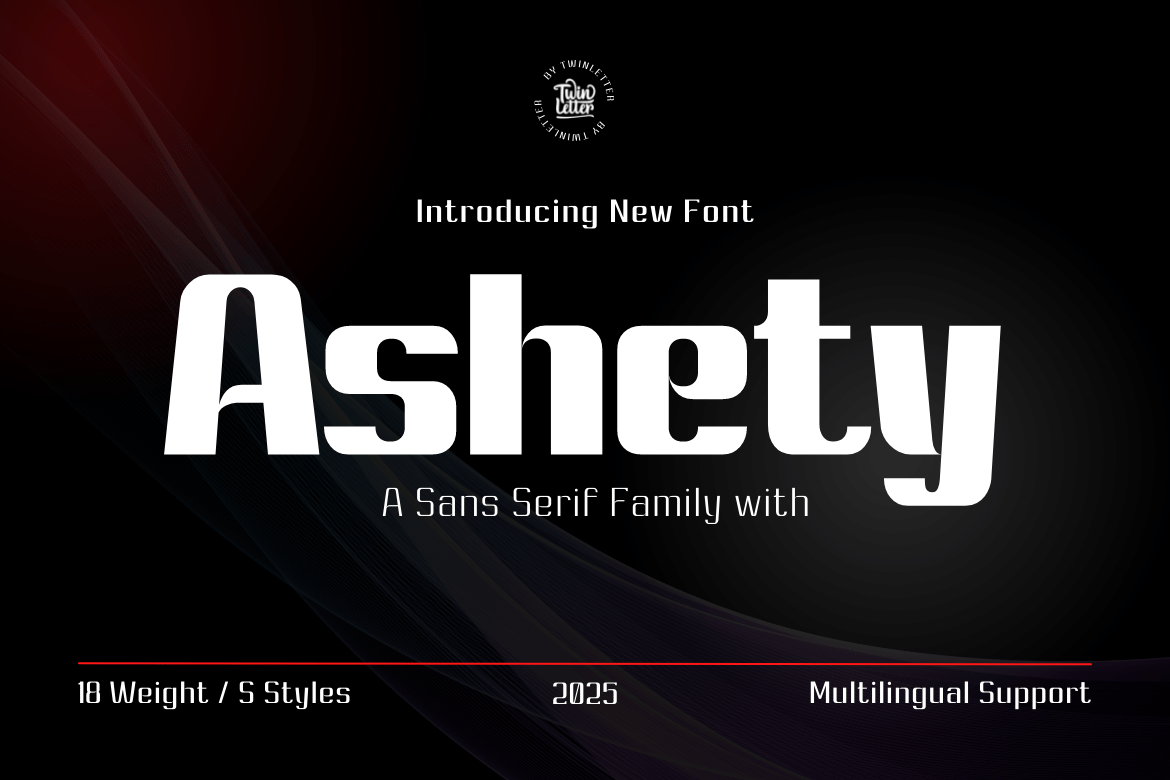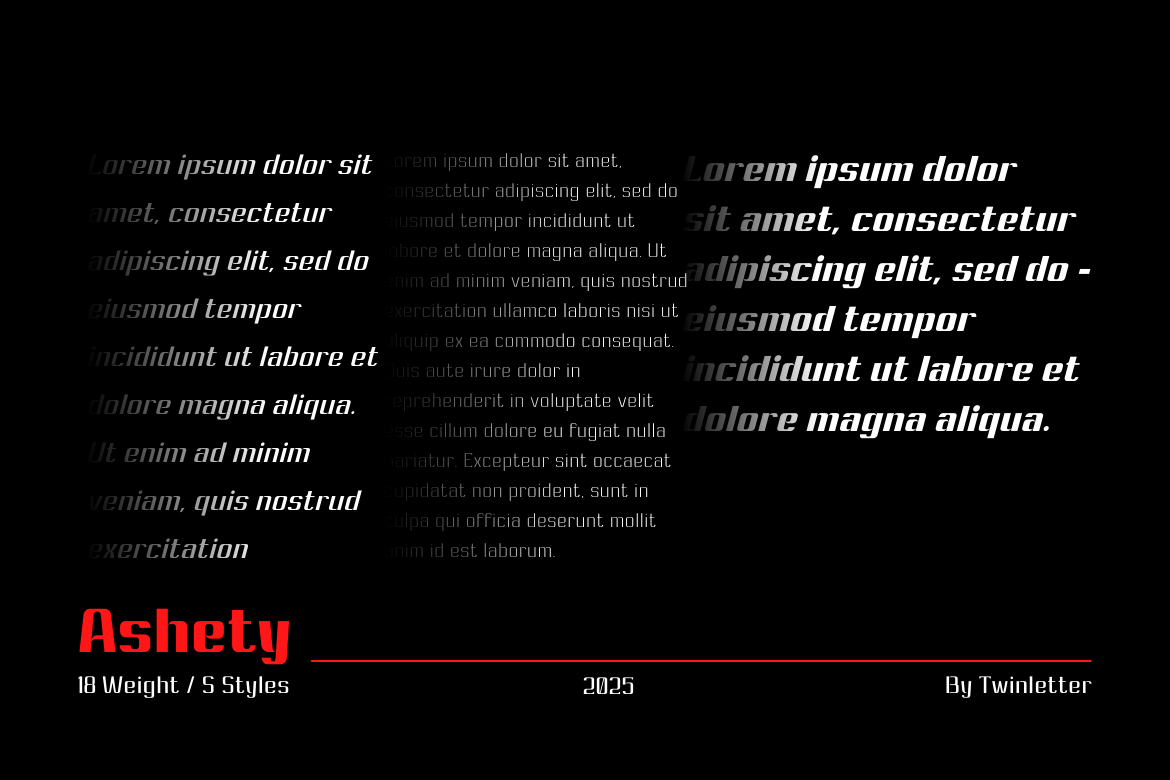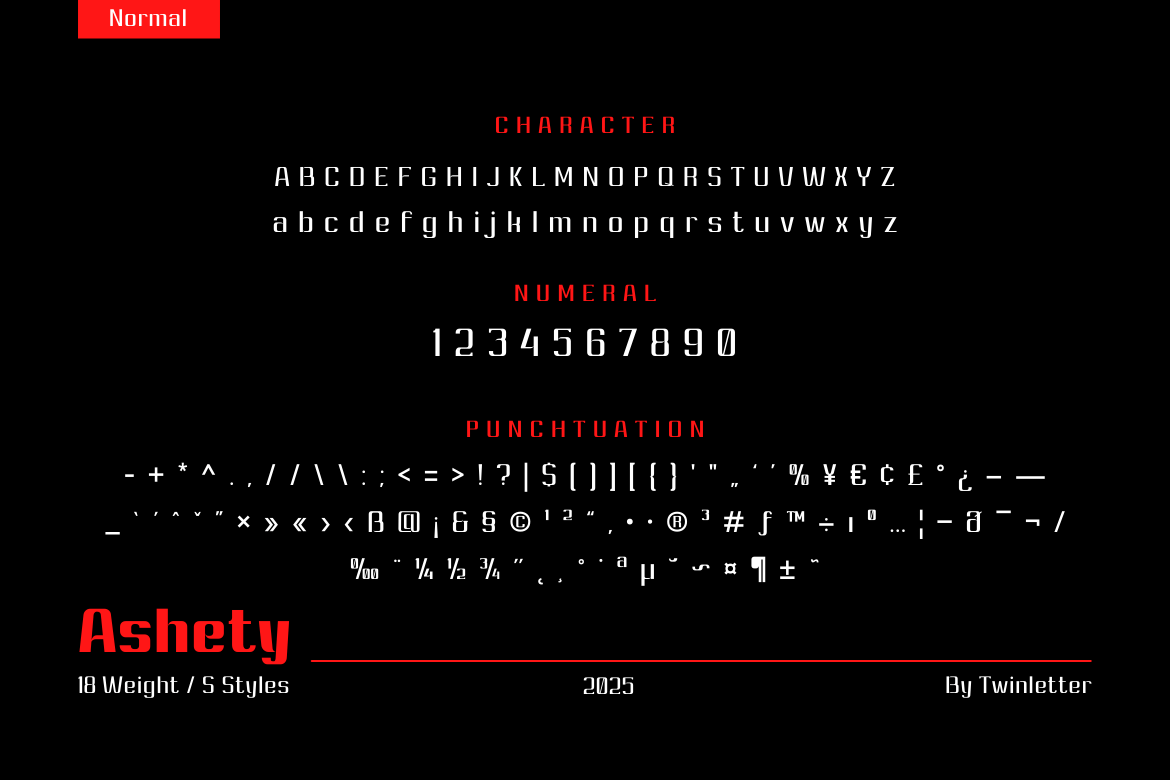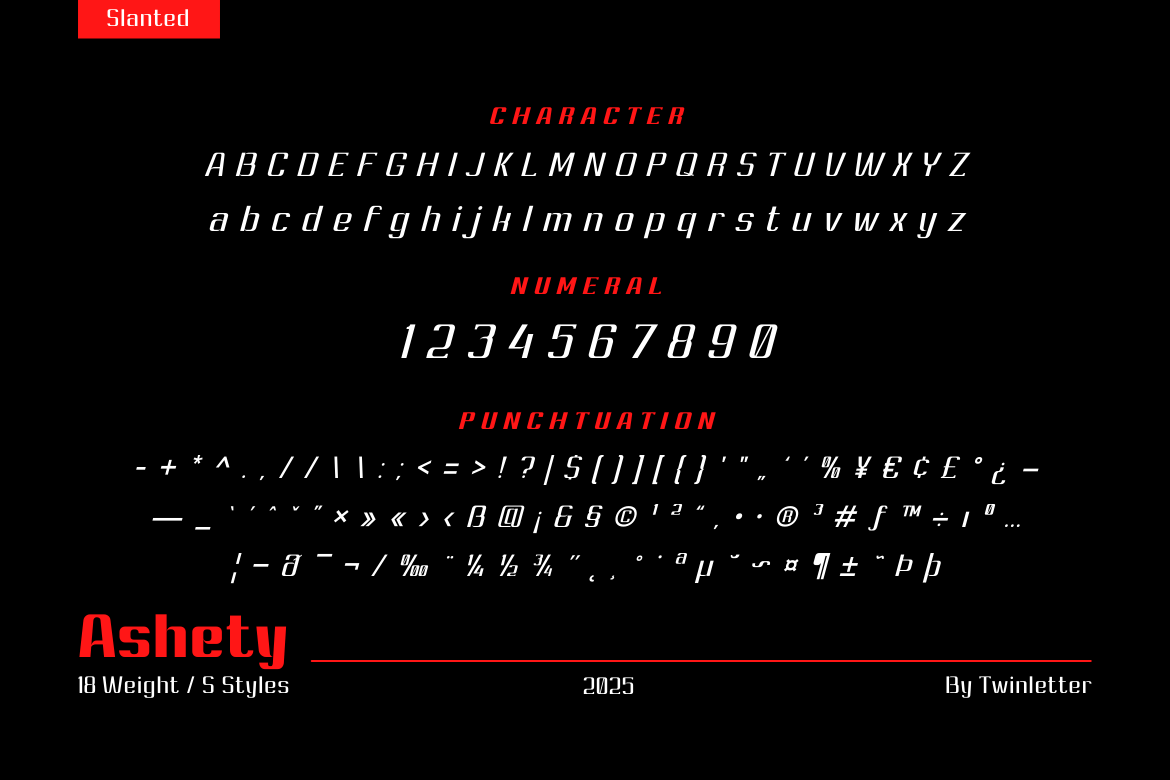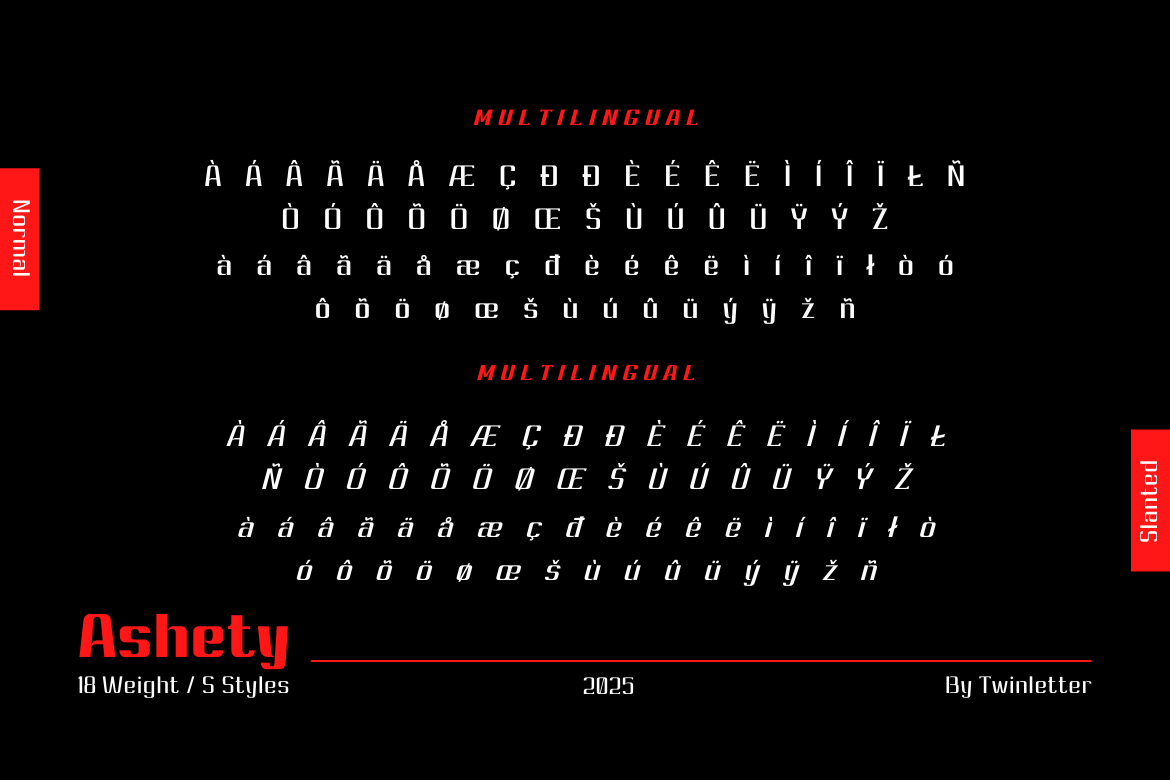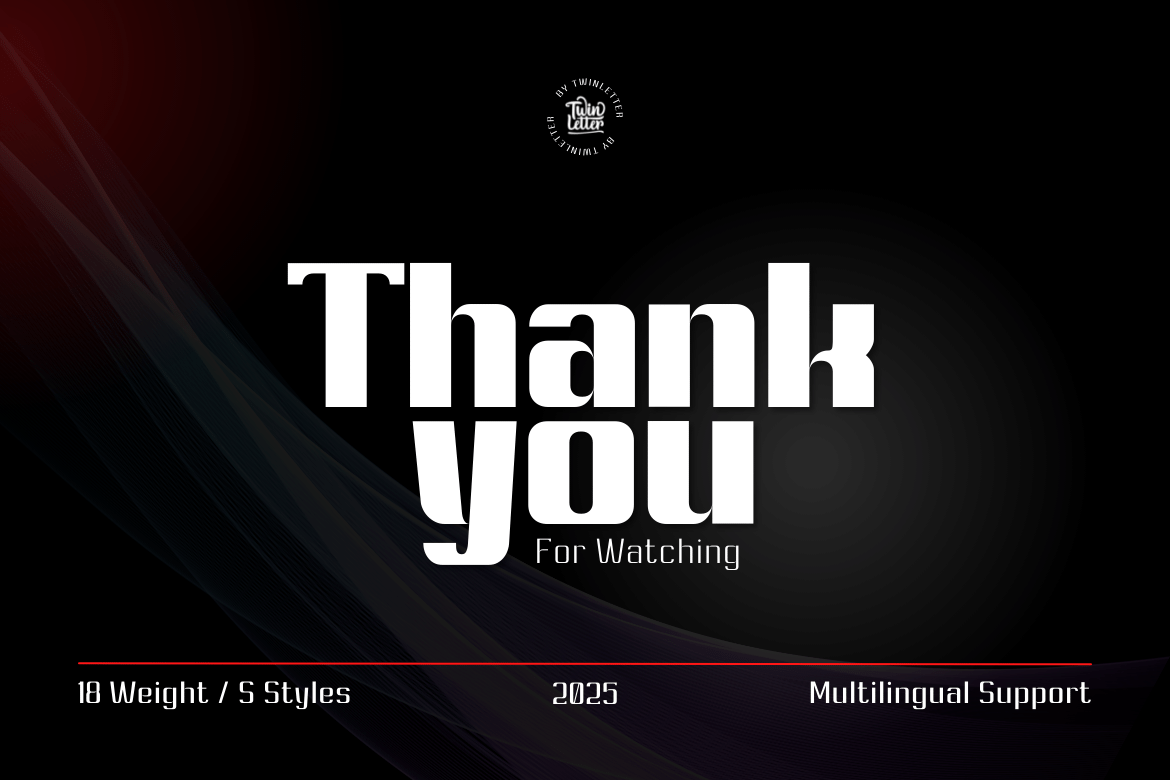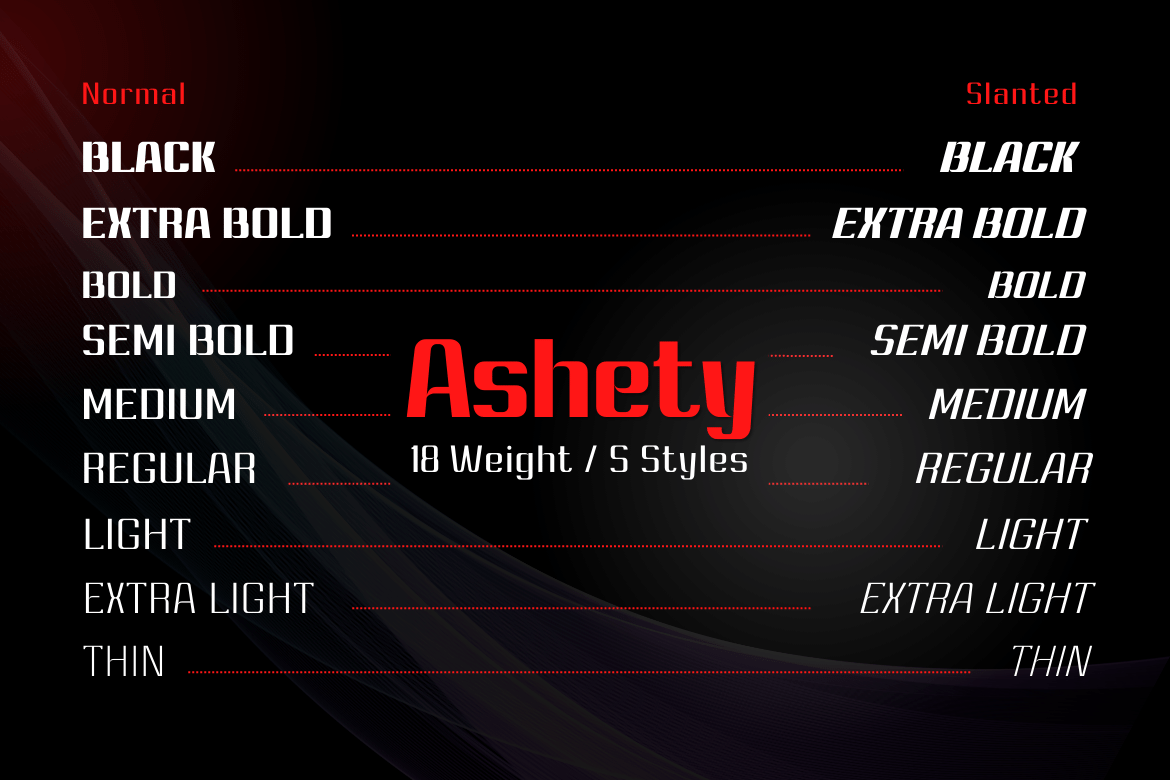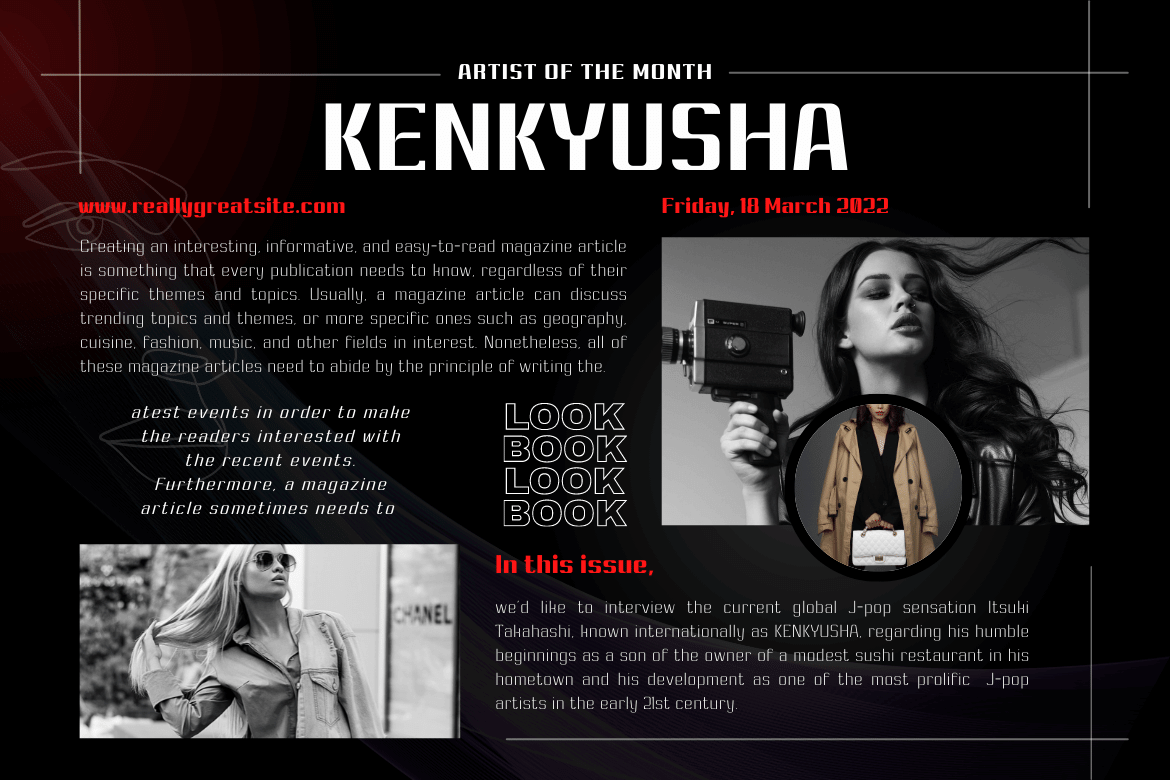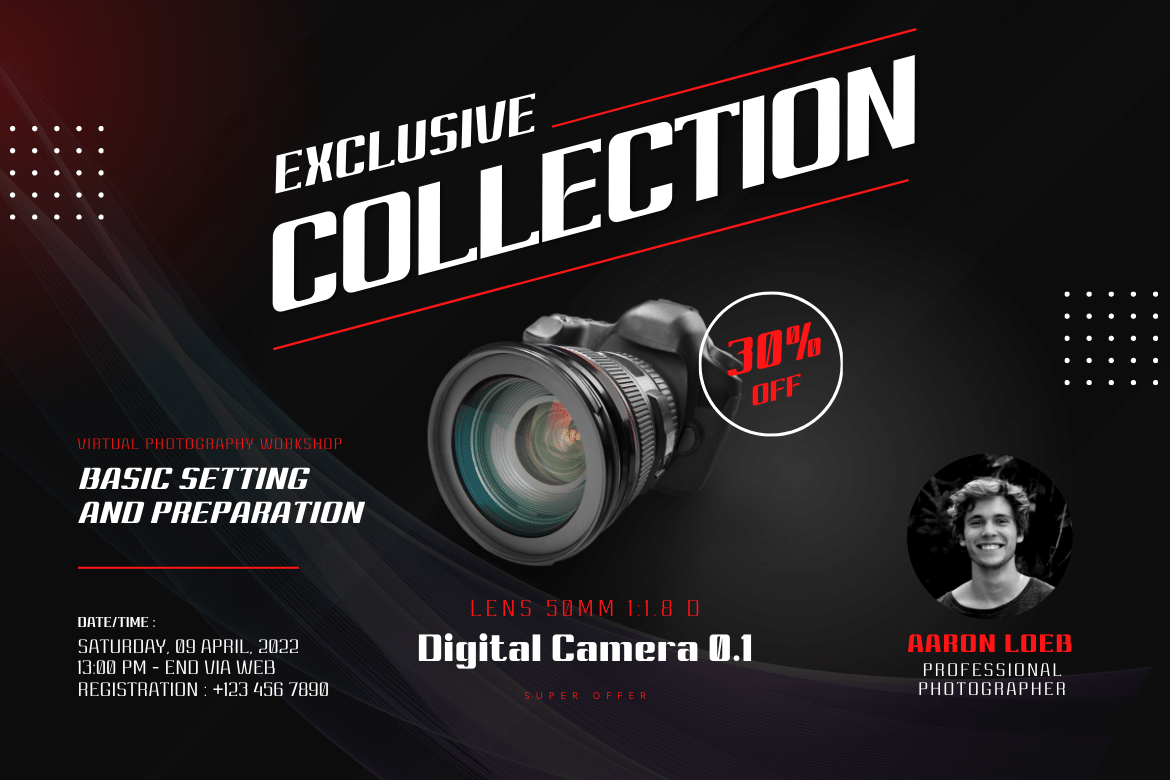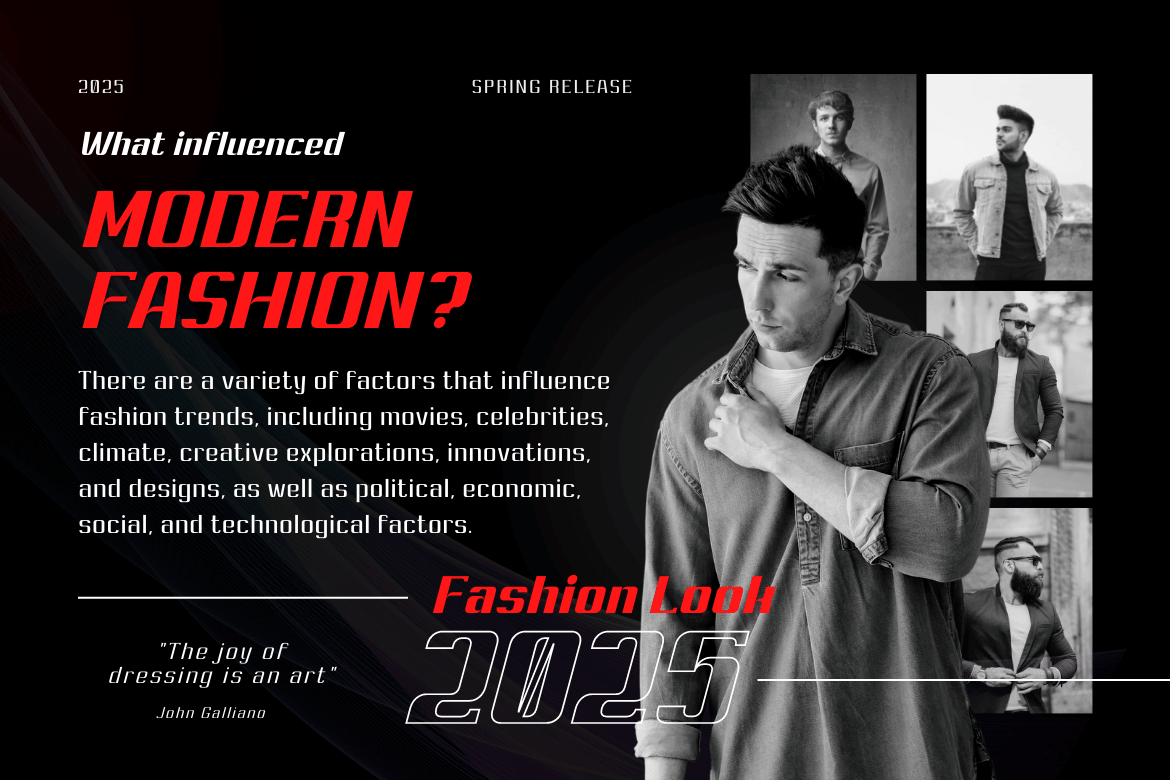
- Ashety
Ashety is our newest san serif, font family. It has 18 different styles, making it ideal for a variety of projects. This font is tailor-made for a wide variety of display design and branding requirements. This font has everything you need to create stunning graphics – including titles, text, banners, posters, and more. Now you can compose beautiful graphics that delight your audience with this original font family!